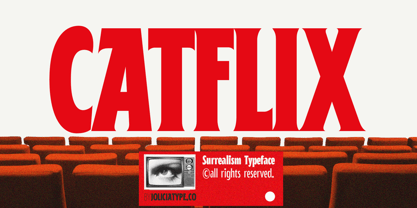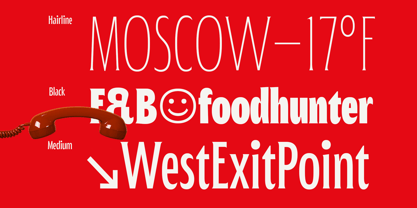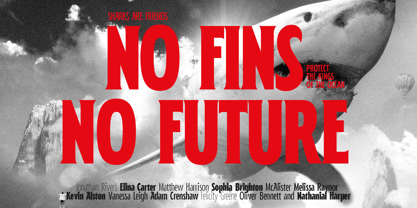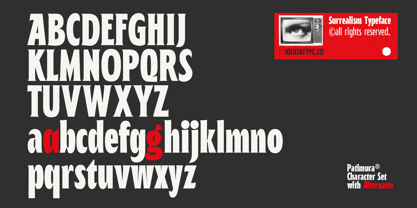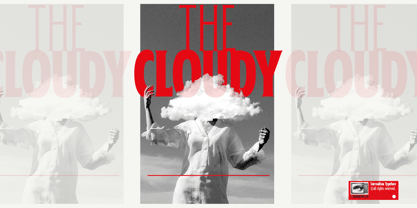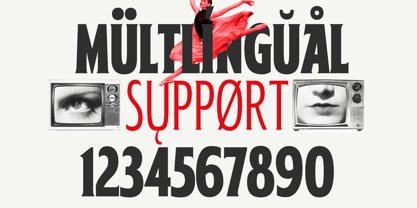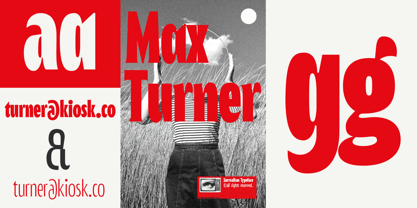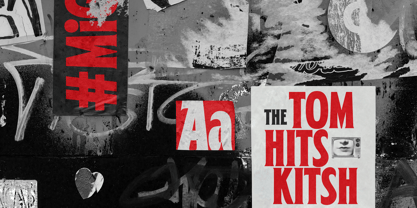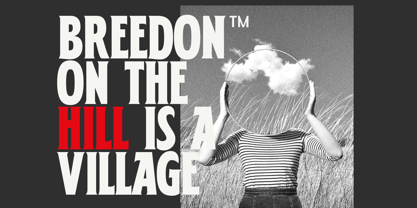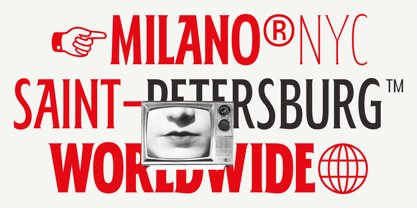
Patimura Condensed
par Jolicia Type
La famille de polices Patimura Condensed a été conçue par Laire Banyu, Dyaharum Pungki Revitasari et publiée par Jolicia Type. Patimura Condensed contient 10 styles et options de package familial.
Patimura Condensed is a modern typeface infused with the spirit of surrealism, designed for creative professionals seeking a unique visual impact. This versatile font family features 10 weights, ranging from delicate Hairline to commanding Black, making it ideal for a wide variety of design projects, including editorial layouts, branding, packaging, and advertising.
With a total of 484 glyphs, Patimura Condensed offers comprehensive multilingual support for 90 languages, ensuring your message reaches a global audience without compromising style. The condensed design and surrealist elements lend it an artistic, imaginative touch, perfect for designs that demand elegance and creativity.